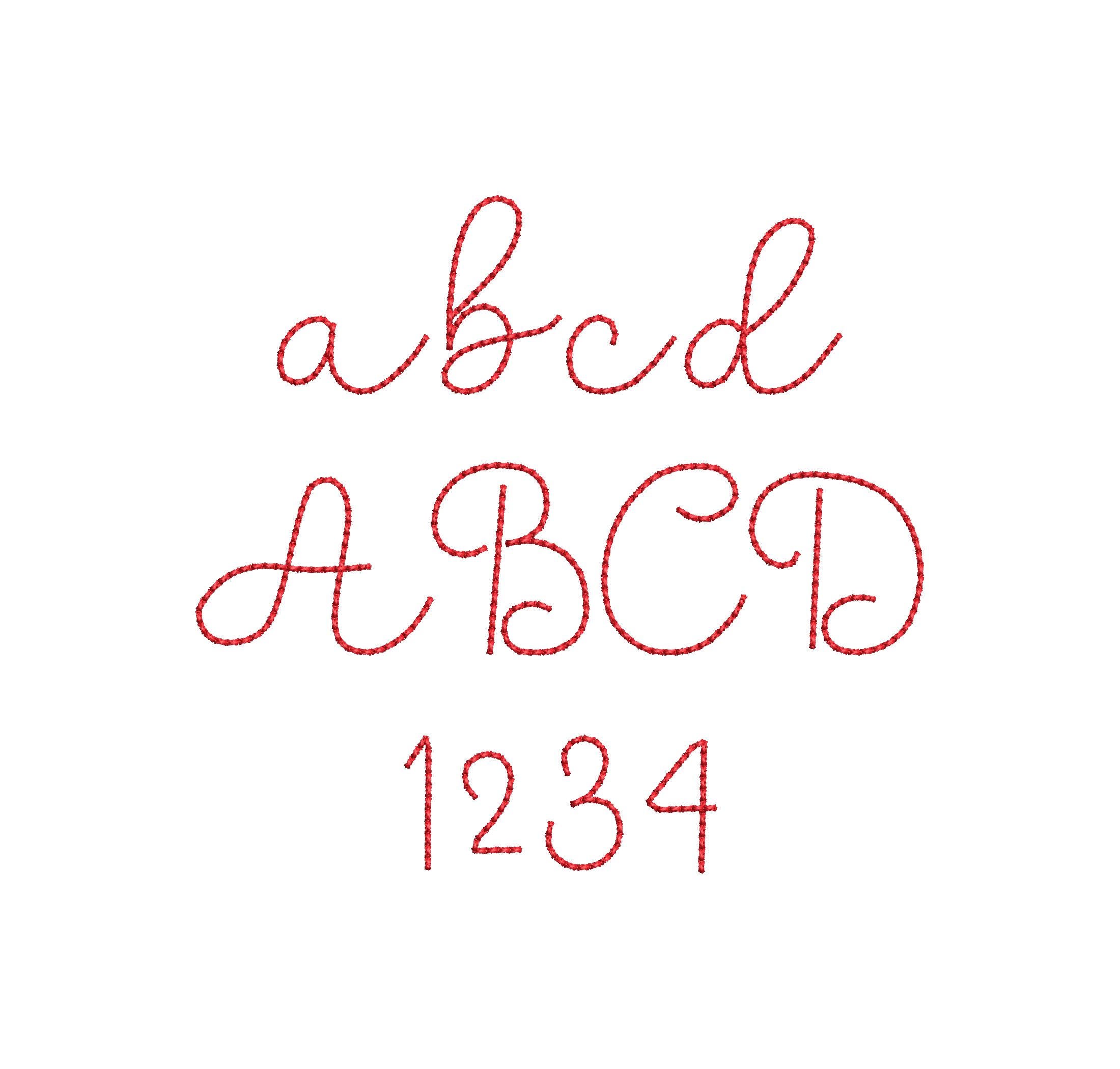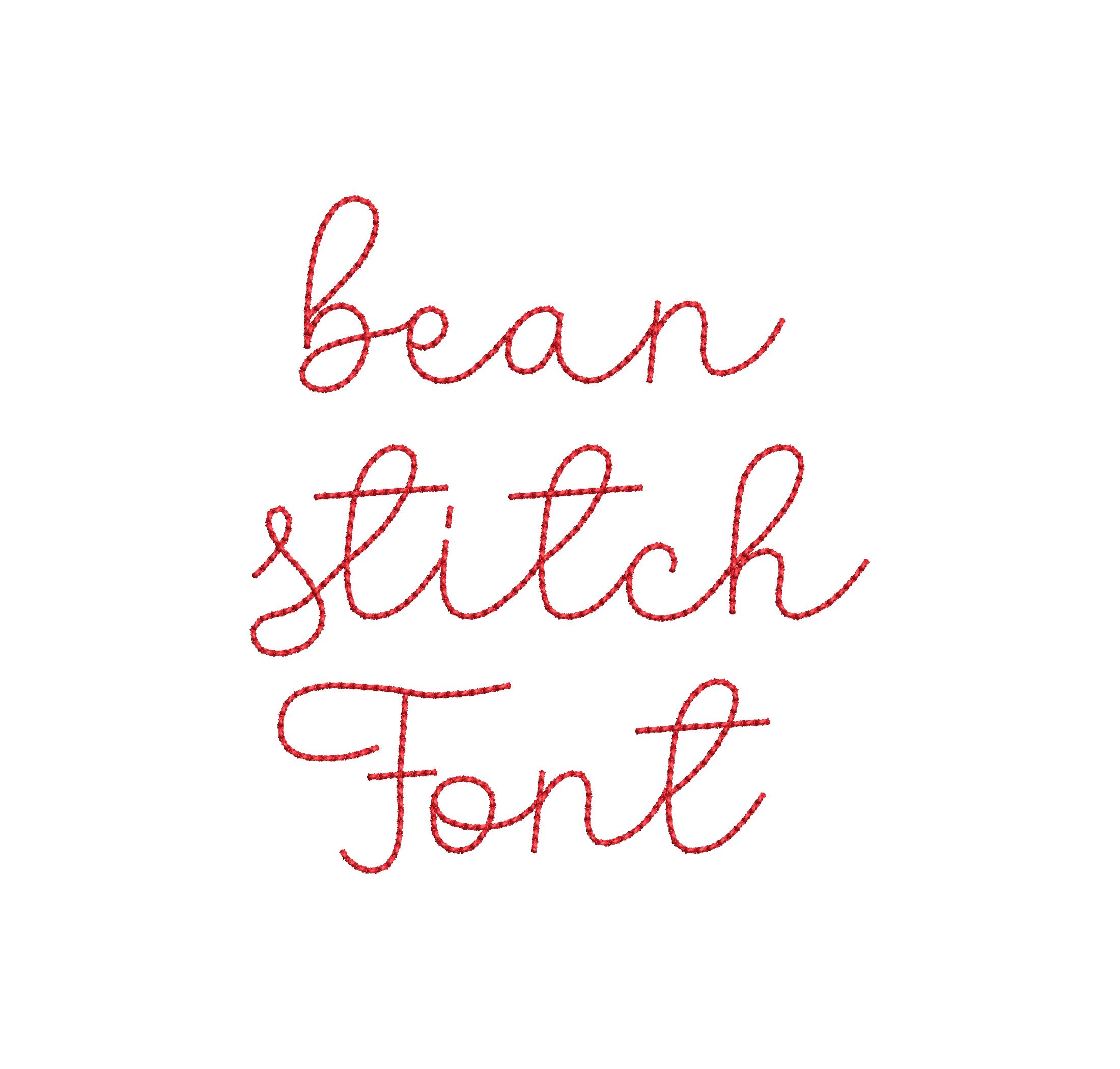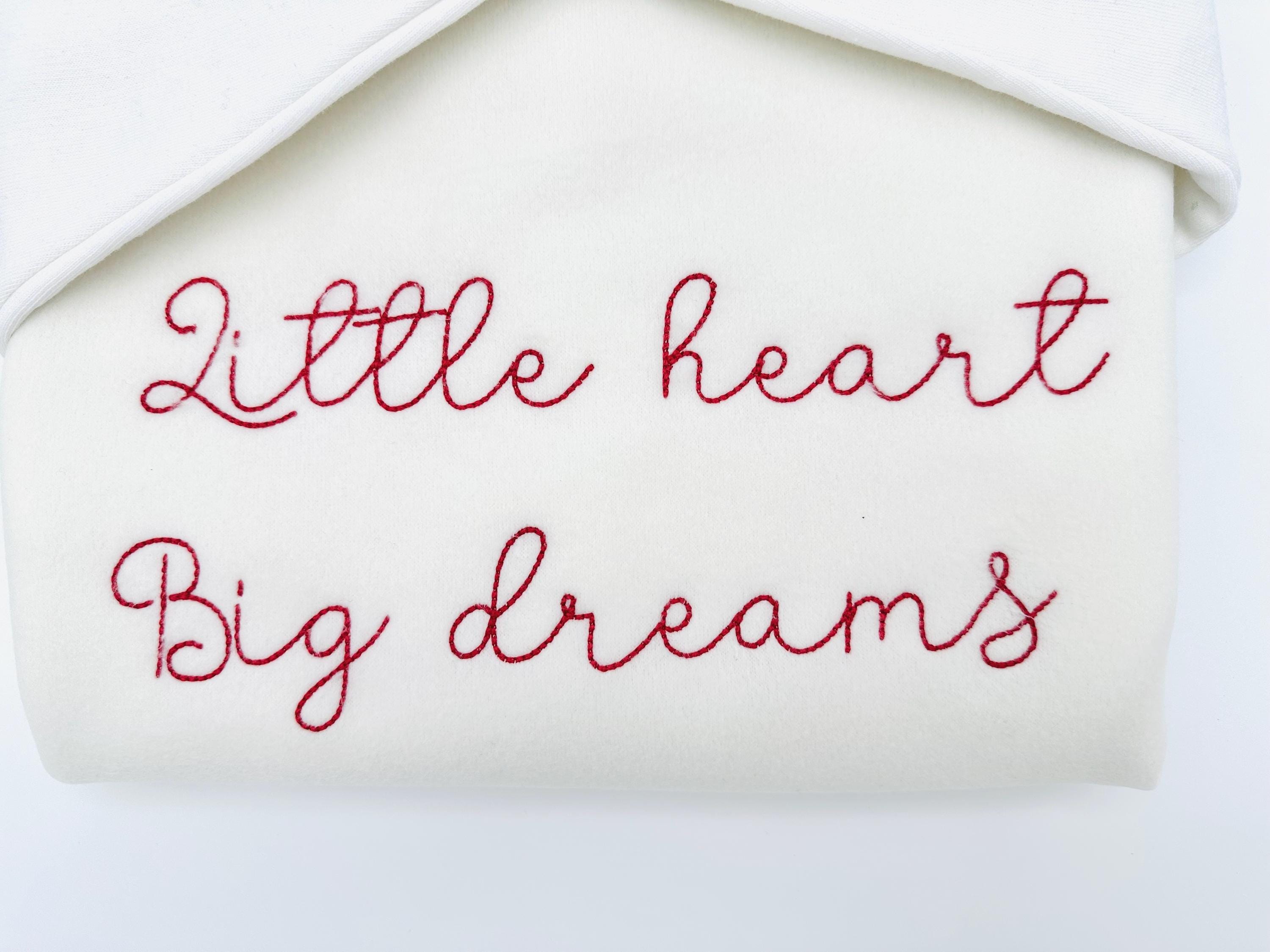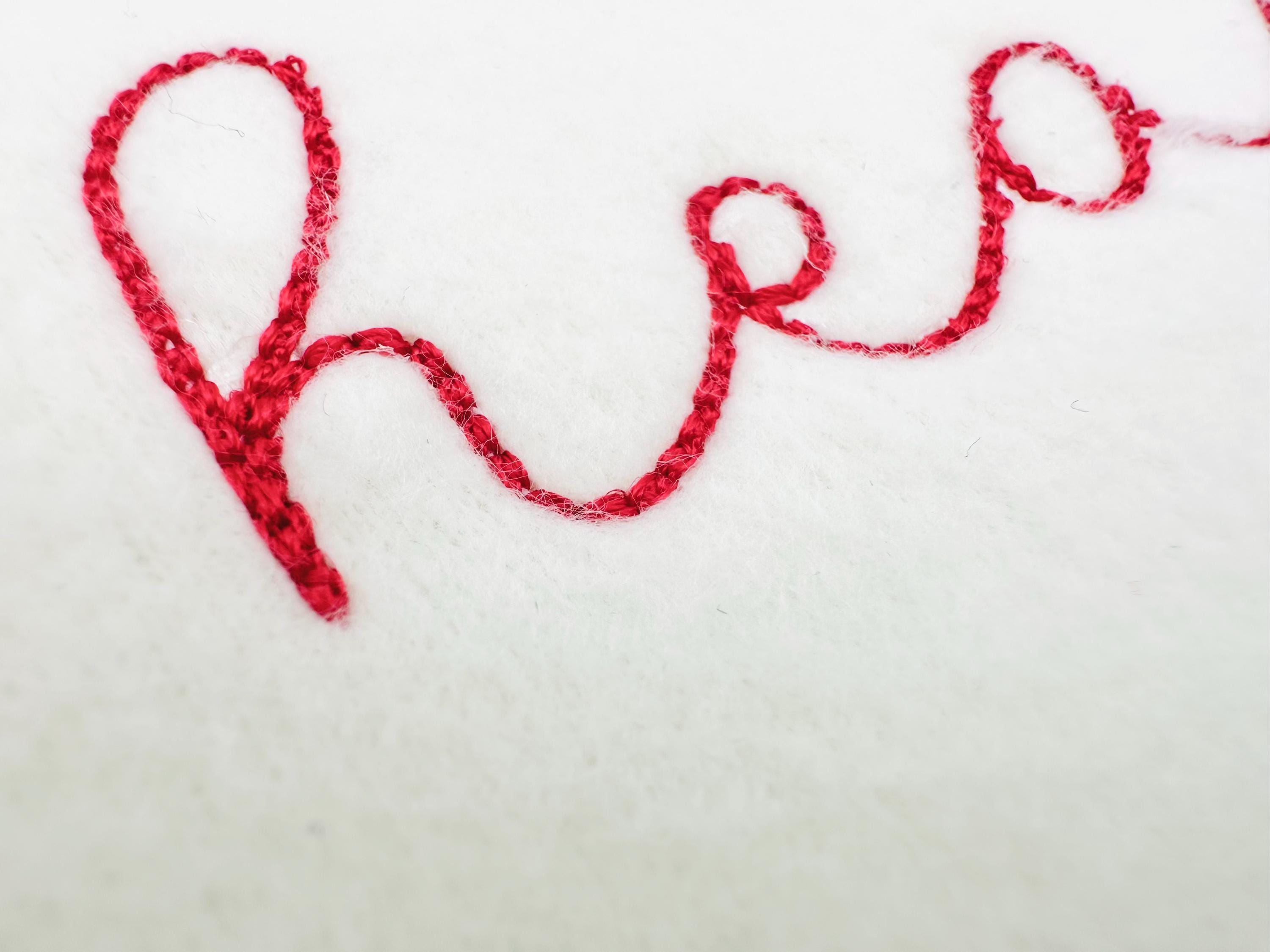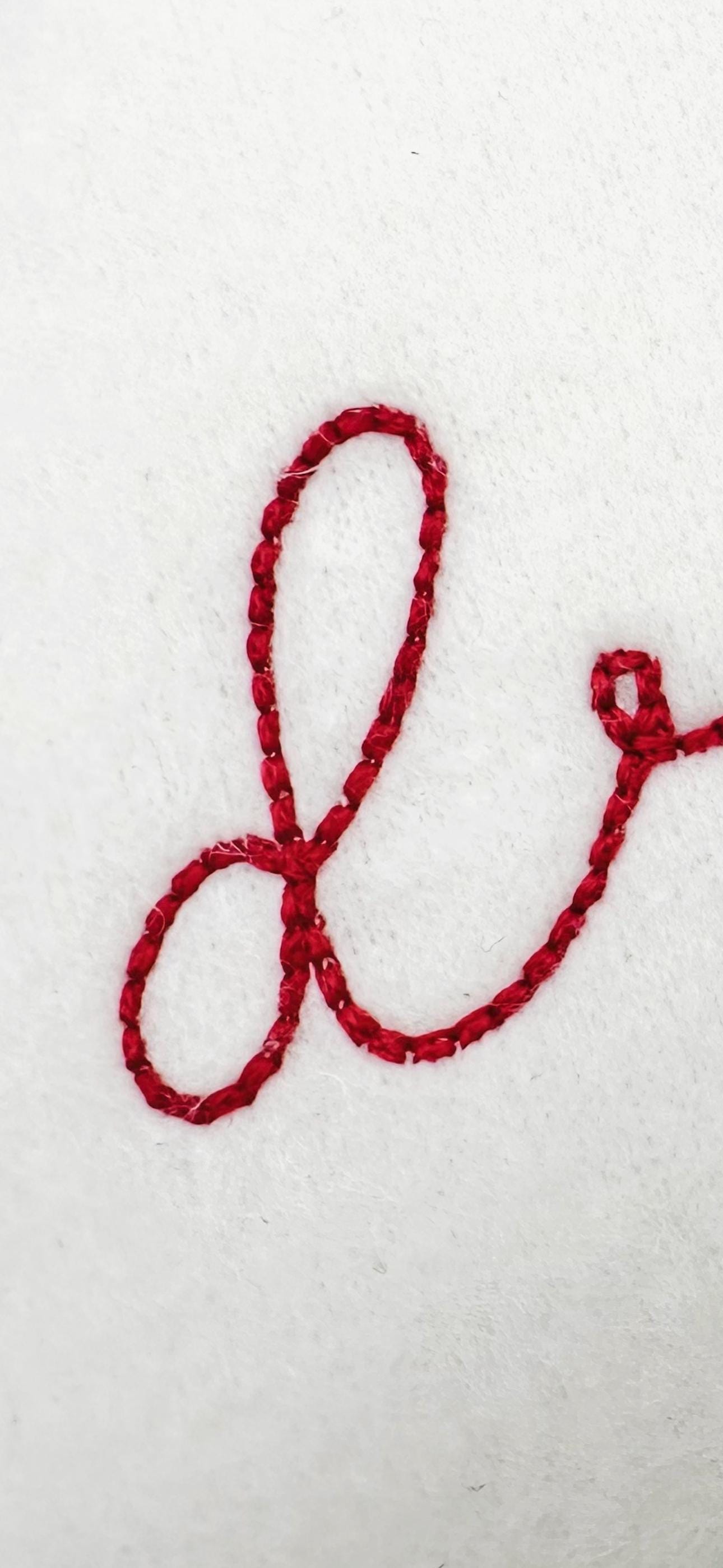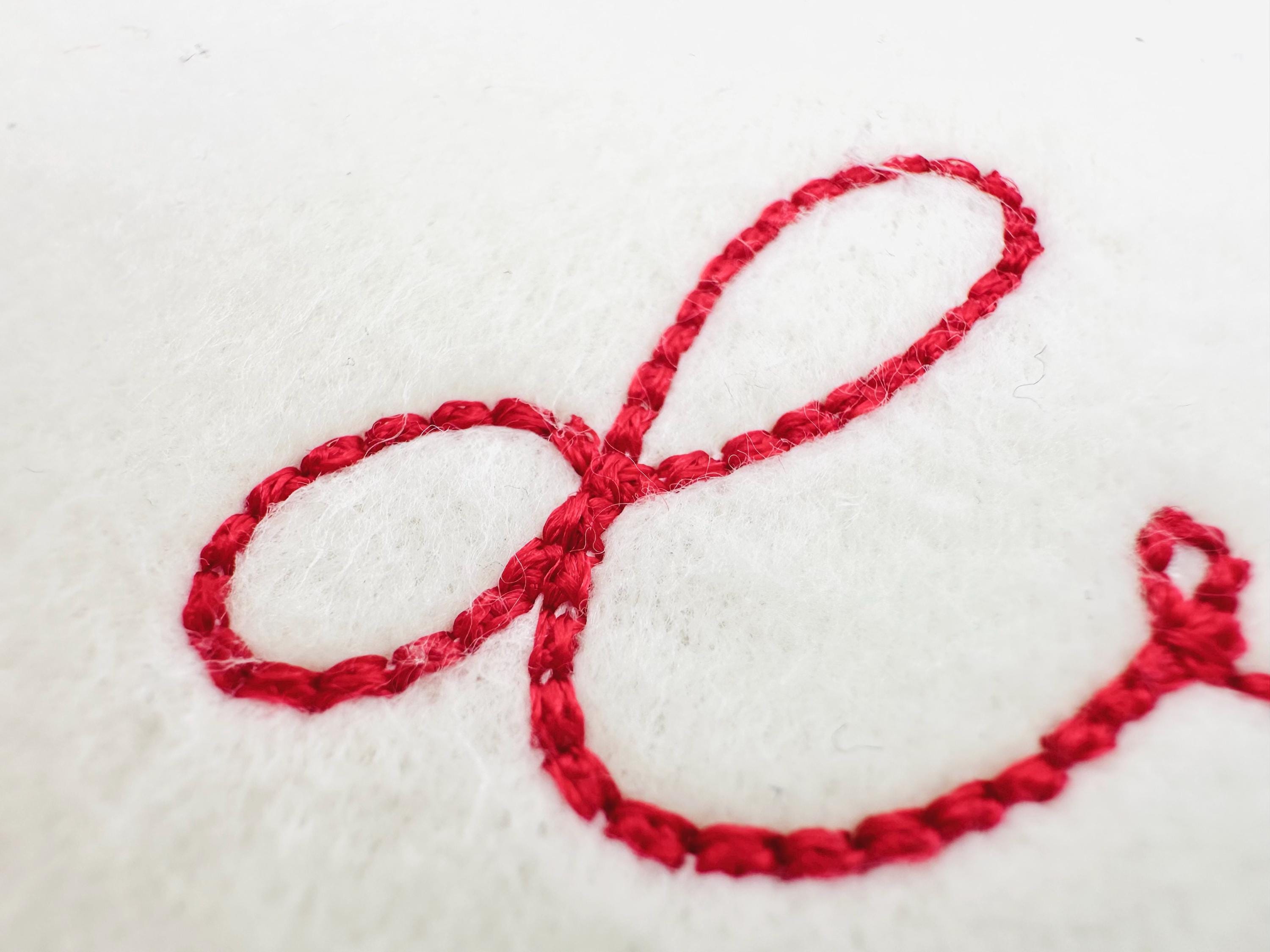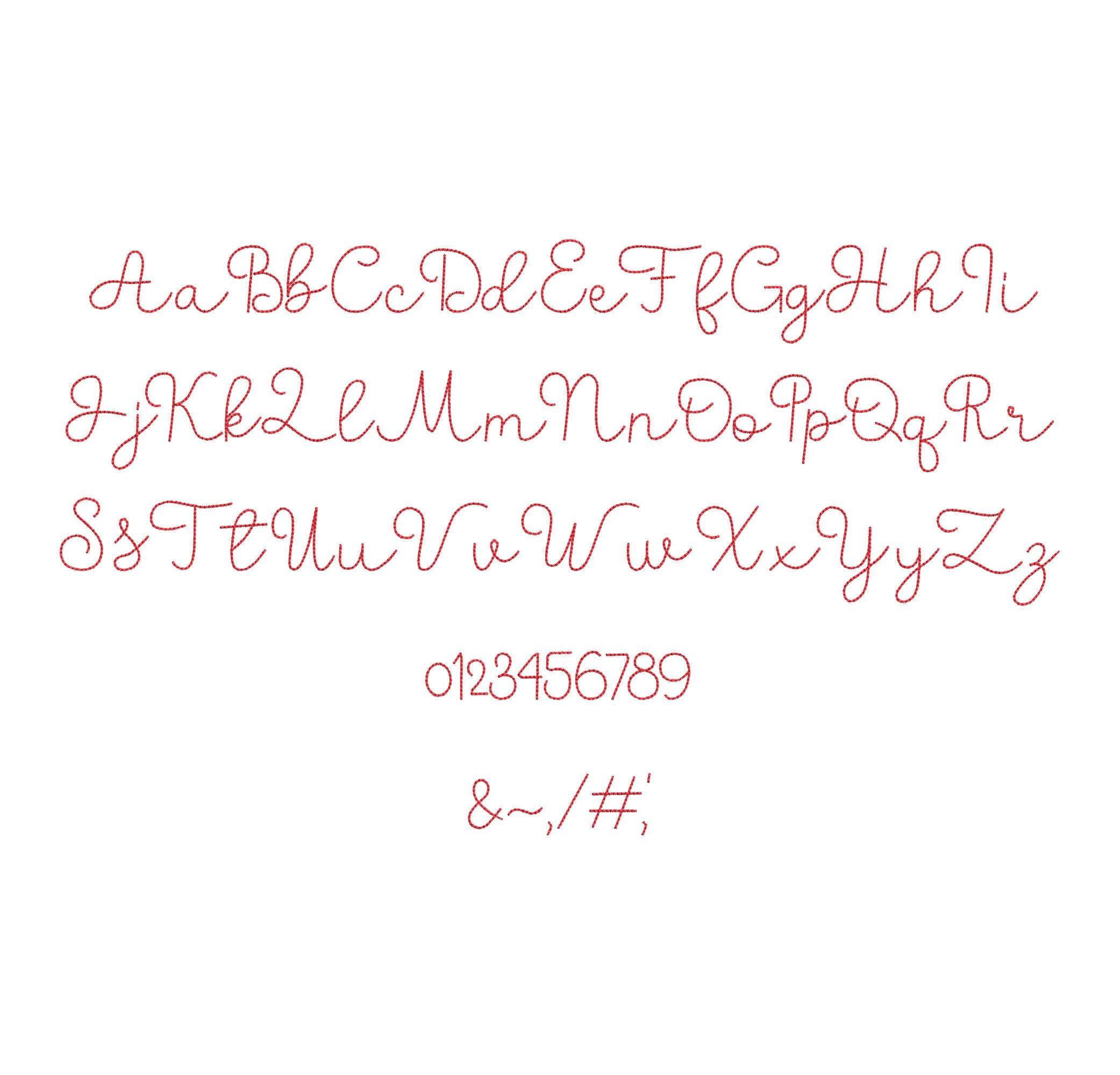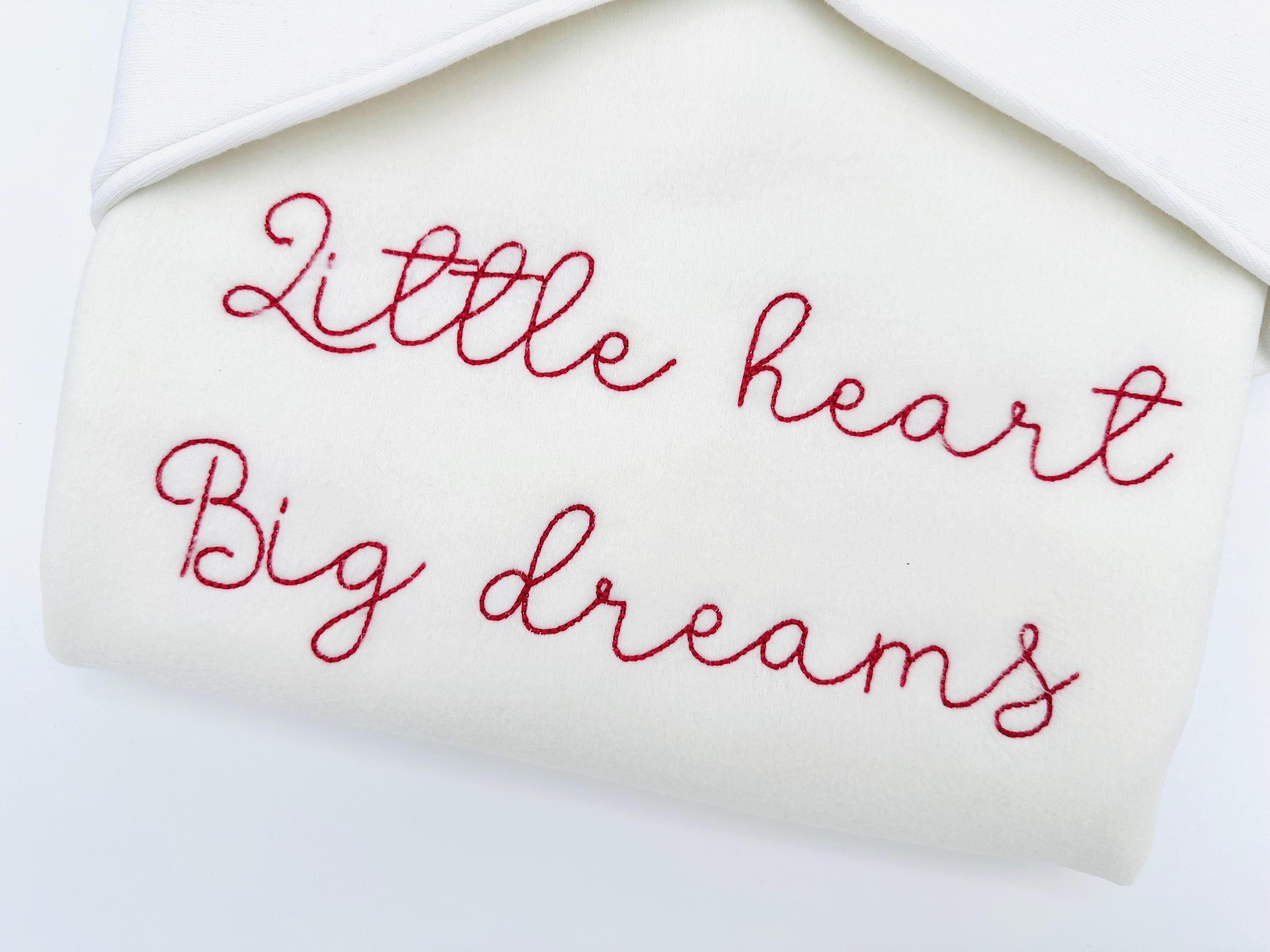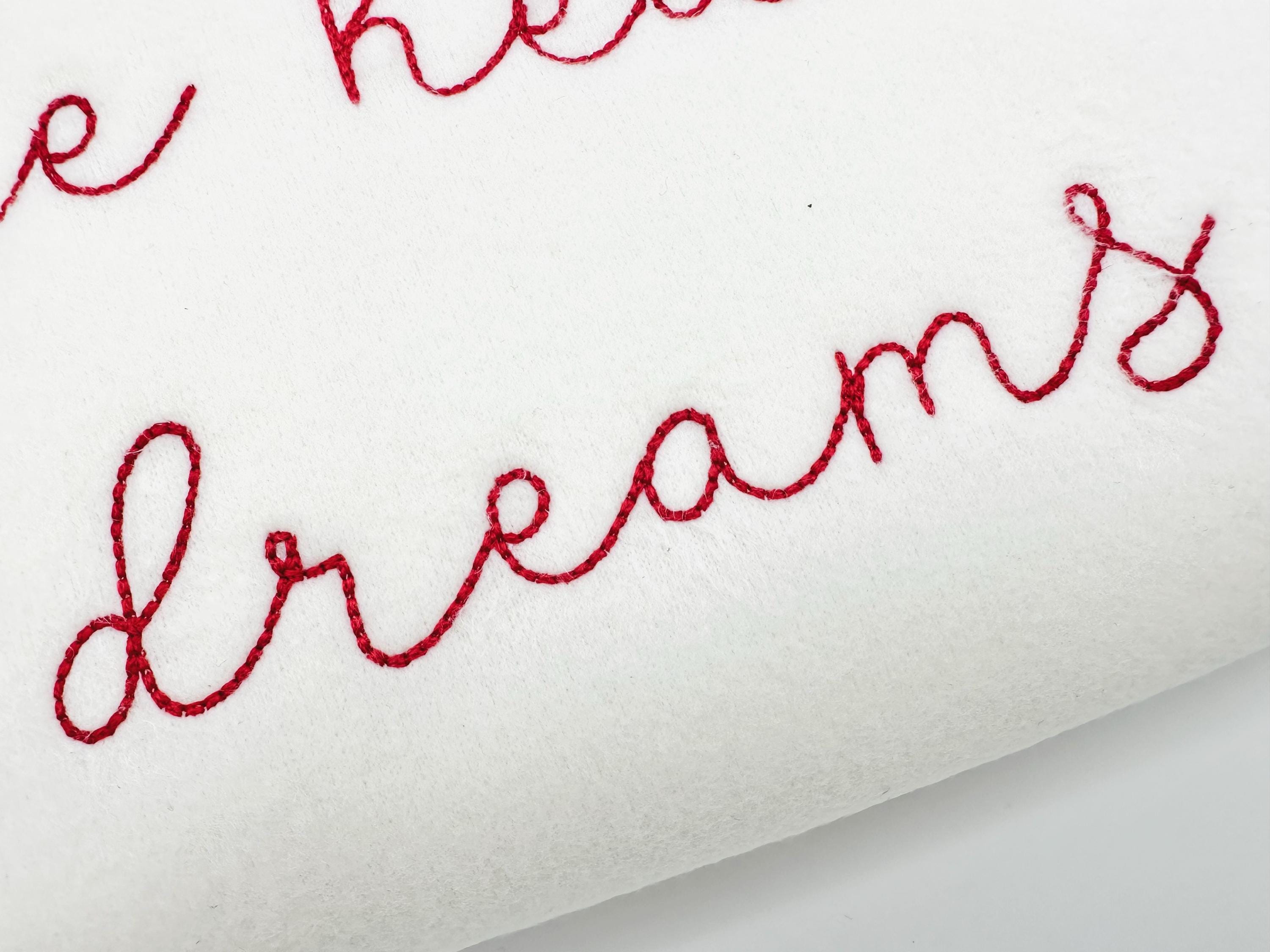
Handwritten script FONT Bunny Bean Alphabet Monogram bean stitch machine embroidery designs letters numbers assorted sizes 1 to 1.9 inch BX
Entire alphabet uppercase and lowercase letters Aa-Zz and numbers 0-9.